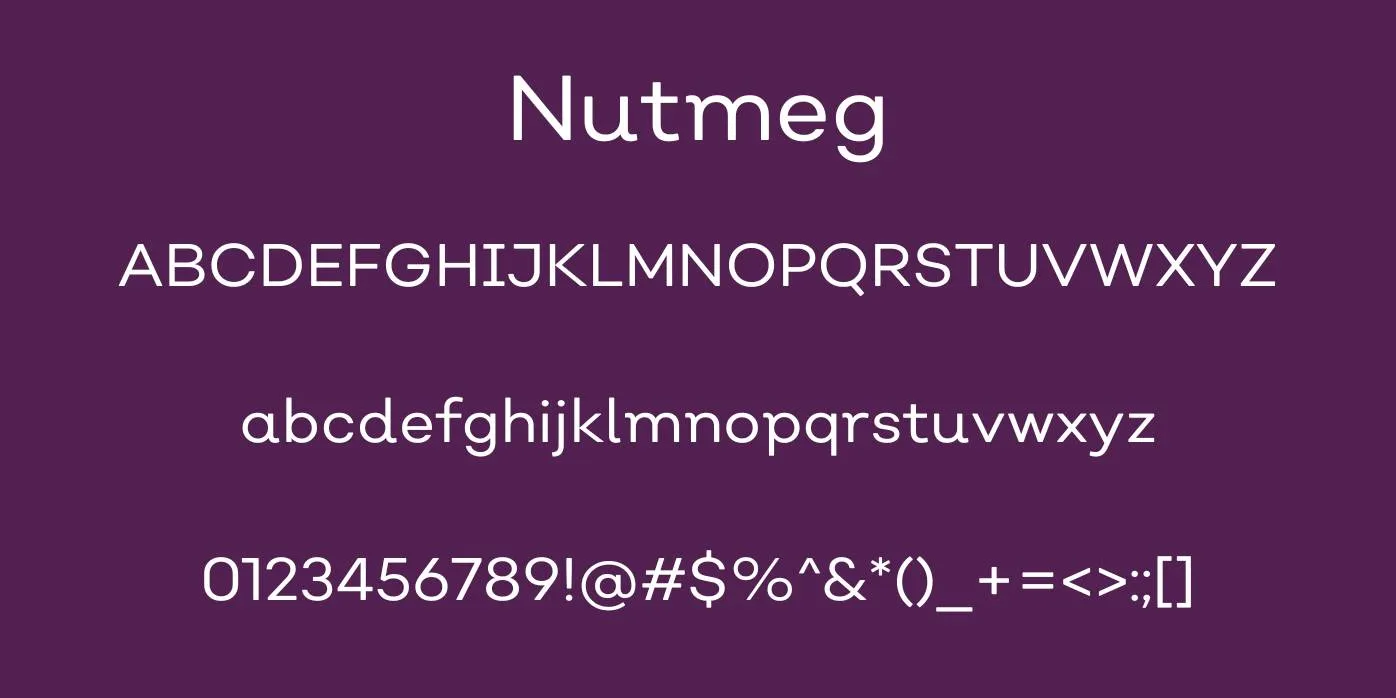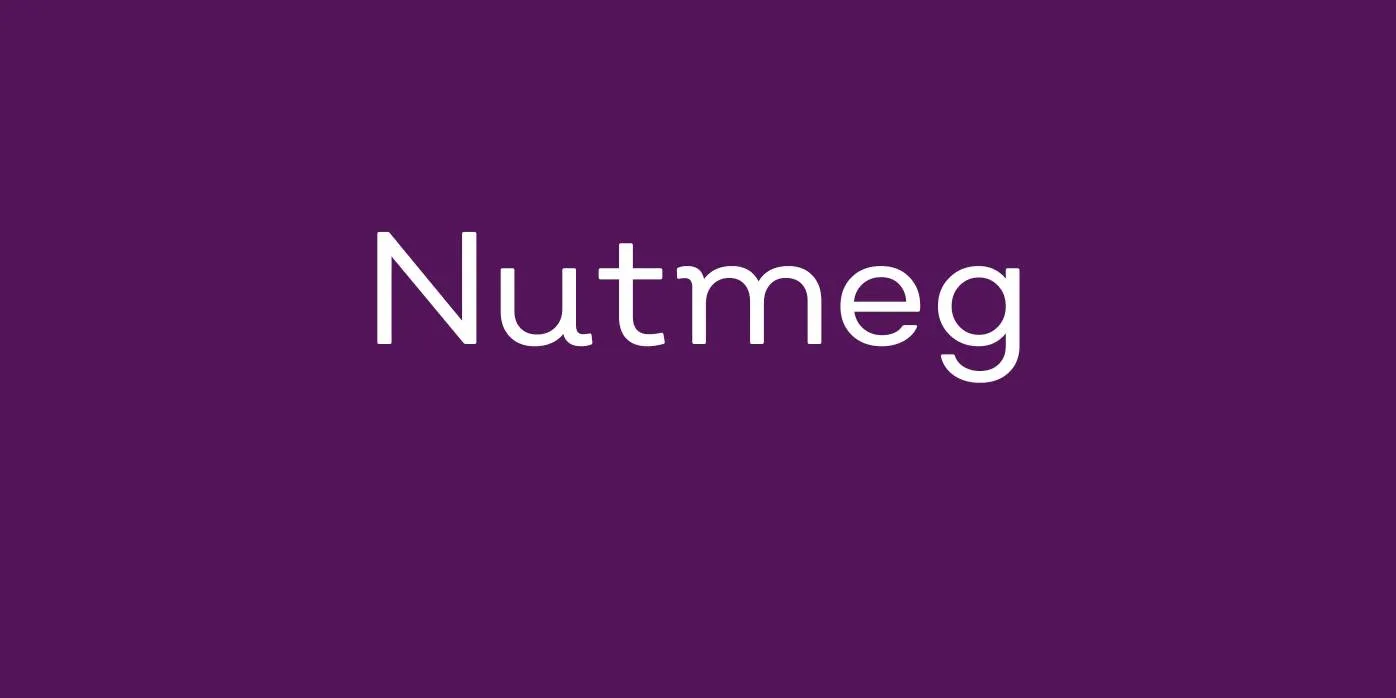
Nutmeg Font
You are going to read about the fancy type of font that is called Nutmeg Font. This texture belongs to the fancy font family. You can get this typeface from our website free of cost. The characters of this typeface are easily readable, bold, classic, and simple.